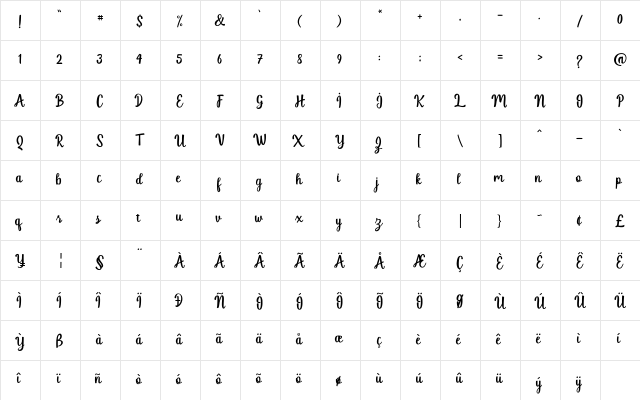
jellyfish Regular
| Foundry | Best Font Studio |
| Designer | Rifan Asri |
Design Context for jellyfish Typeface
jellyfish is a composed and adaptable typeface that performs quietly and consistently across a wide range of design contexts.